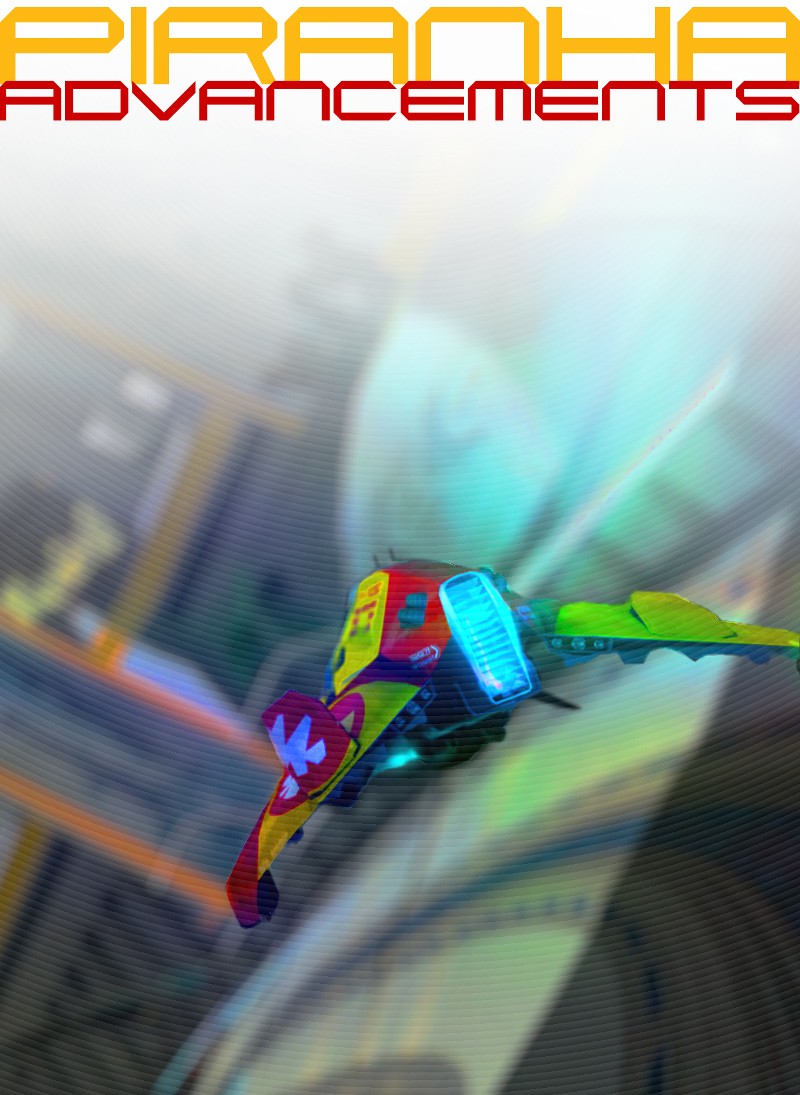
"Here is a based on the logo for Piranha, a team in the Wipeout series. The fonts feature the upper-case alphabet, and where examples are not provided, I've done my best to stick to the 'rules' of the letter structure. Included in the package: -A Promotional Poster showcasing the font -Font -Example Logo Graphic -Team Colours Graphic" Made in 2009. |